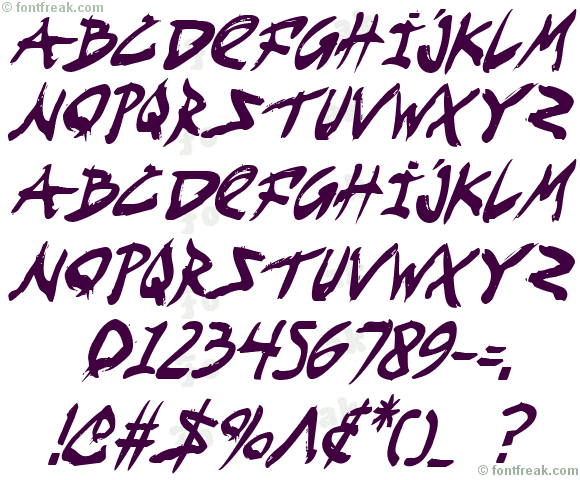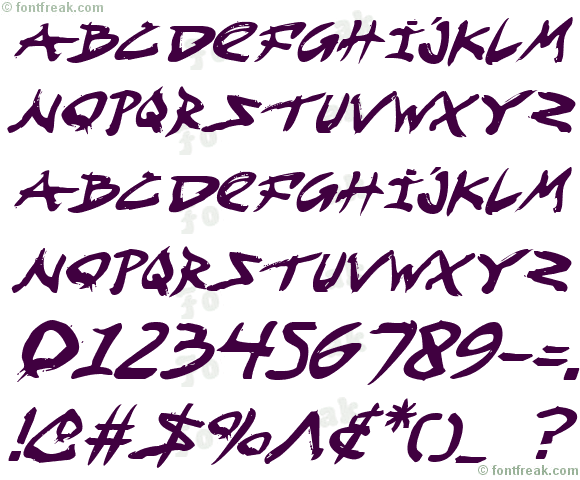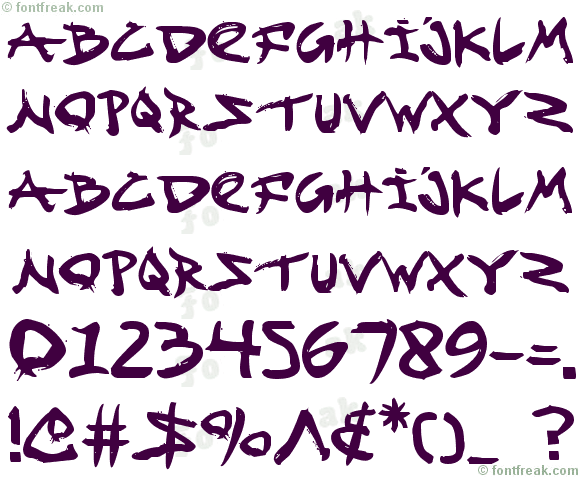
About Fight Kid
The Fight Kid font by Iconian Fonts is a striking display typeface that embodies an energetic and playful spirit. As a condensed font, it features bold, thick strokes that convey a sense of strength and movement, making it ideal for projects that require a punch of personality. The font's overall style leans towards a decorative aesthetic, with an italicized form that adds dynamism and flair. The slightly irregular strokes give it a hand-drawn quality, enhancing its appeal for creative applications.
Visually, the Fight Kid font showcases a unique combination of heavy contrast and varied stroke weights. The deliberate rough edges and playful curves lend a sense of motion, making each character feel alive and expressive. The spacing between letters is well-considered, ensuring readability while maintaining the font's energetic vibe.
This font is particularly well-suited for a variety of creative projects. It can be effectively used in designing movie posters, especially for action or adventure films, where the boldness can capture attention. Additionally, it can enhance the visual appeal of children's book covers, game graphics, or promotional materials for youth-oriented events. Restaurant menus that aim to create a fun and casual atmosphere can also benefit from the lively character of the Fight Kid font.
Targeting graphic designers, small business owners, and content creators, this font brings a unique flair to any project. Its freewheeling style resonates with those looking to inject energy and excitement into their designs.